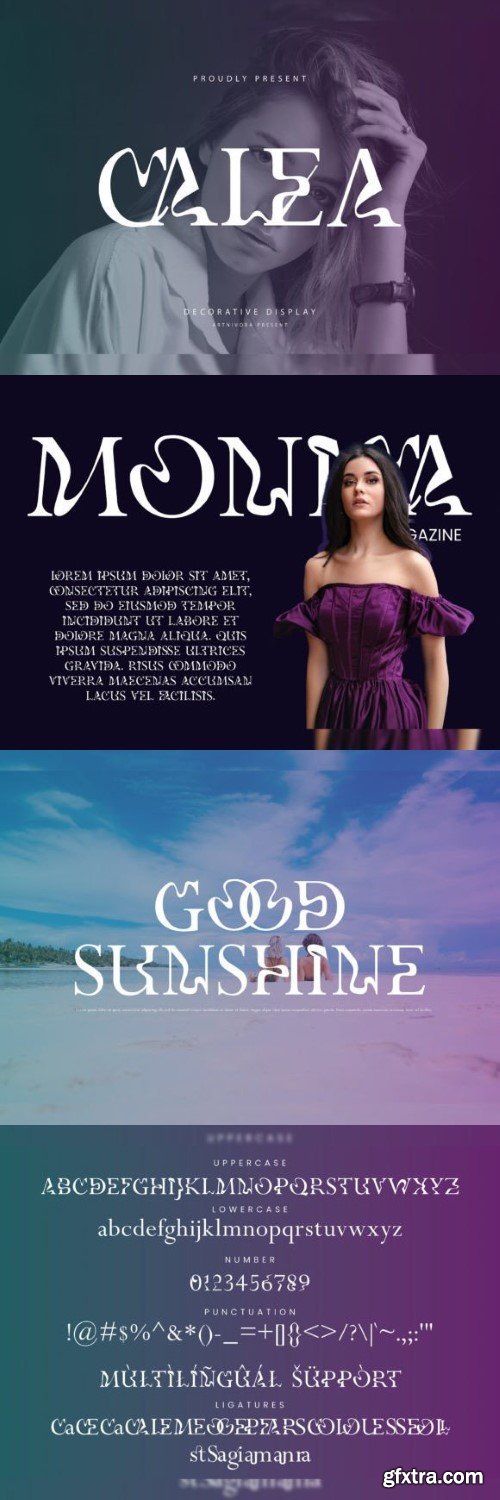
卡尔·Font
Calea is a simple decorative display font, perfect for use on logo designs, magazines, social media, brochures, business cards, invitations and so much more.